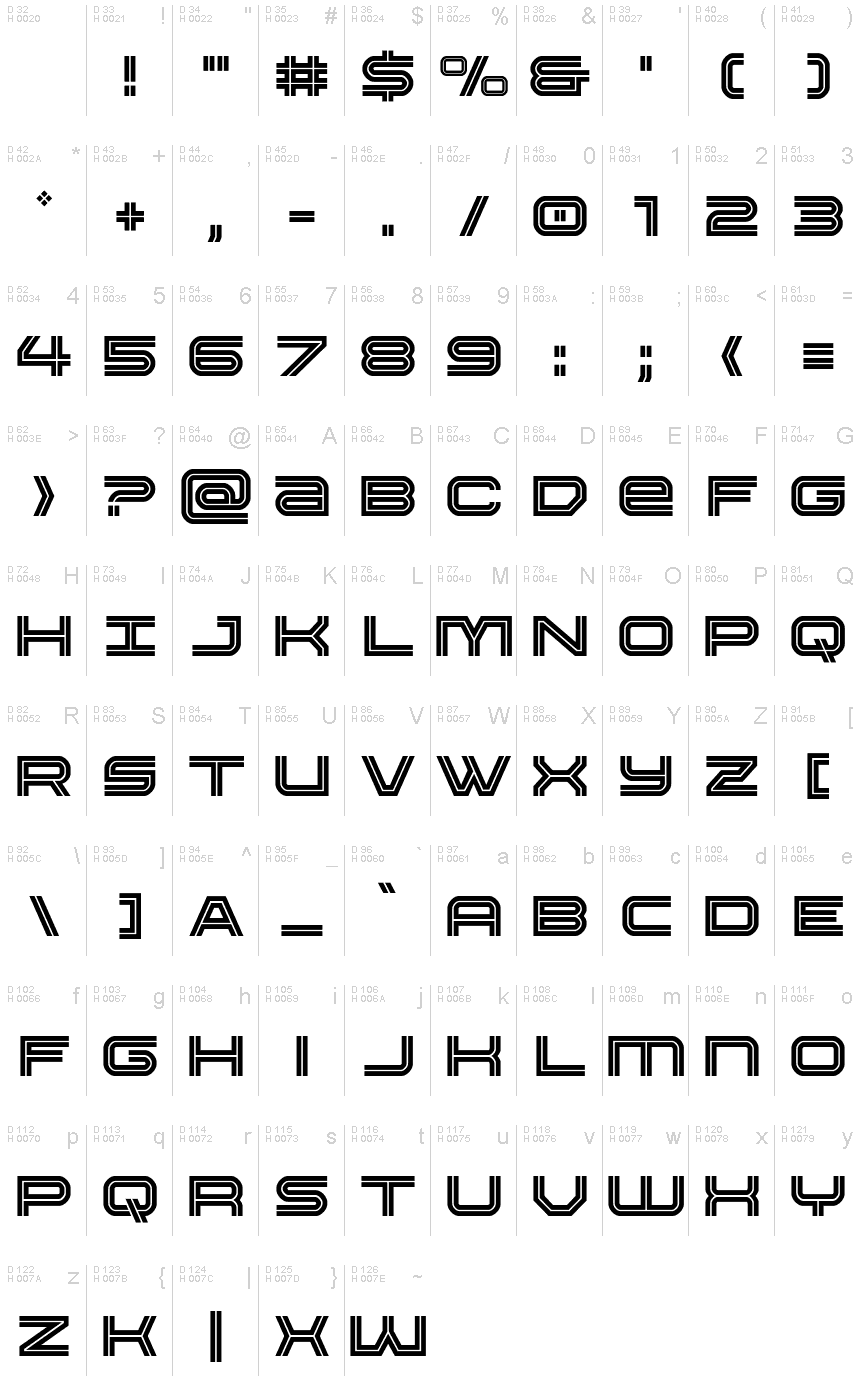
Gran Torino Spaced
Introducing Gran Torino Spaced, a bold and wide techno display font designed by Daniel Zadorozny. Perfect for creating futuristic designs, tech-inspired logos and eye-catching titles that stand out.
極拡張